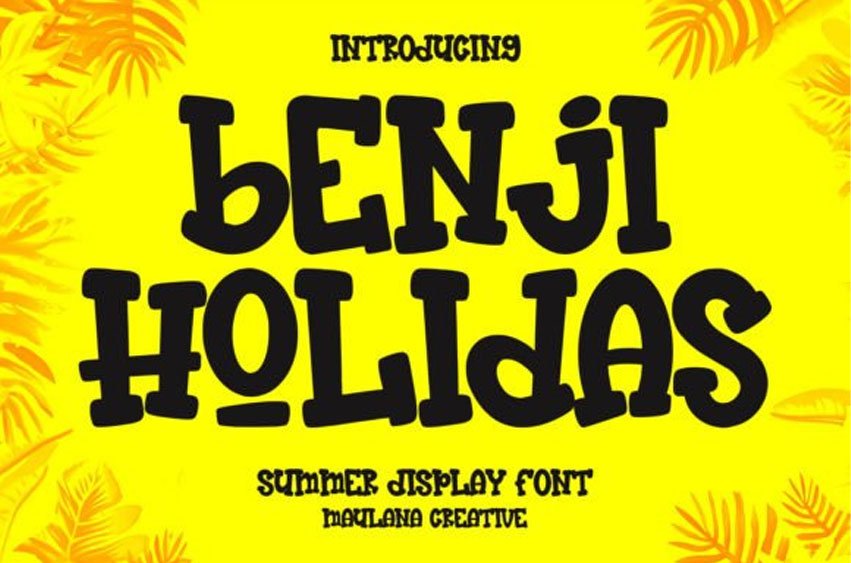
Benji Holidas Font
Benji Holidas Font summer display font. Benji Holidas summer display font support multilingual more than 100+ language.
This font is good for logo design, Social media, Movie Titles, book titles, a short text even a long text letter and good for your secondary text font with script or serif. Make a stunning work with Benji Holidas summer display font.